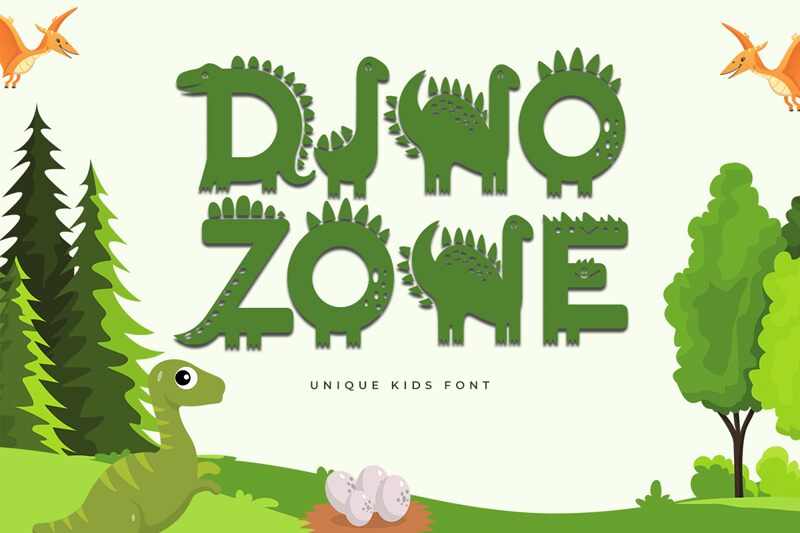
Dino Zone font by Kong Font is a free decorative typeface with a whimsical and imaginative style. Inspired by the prehistoric world, this font brings a playful and engaging vibe to your design projects. Its themed and child-friendly design makes it perfect for various applications that require a touch of creativity and fun.
Ideal uses for Dino Zone include children’s book covers, nursery decor, school project presentations, animated movie posters, educational games, playful logos, toy packaging, party invitations, storytime videos, and colorful magazine layouts.